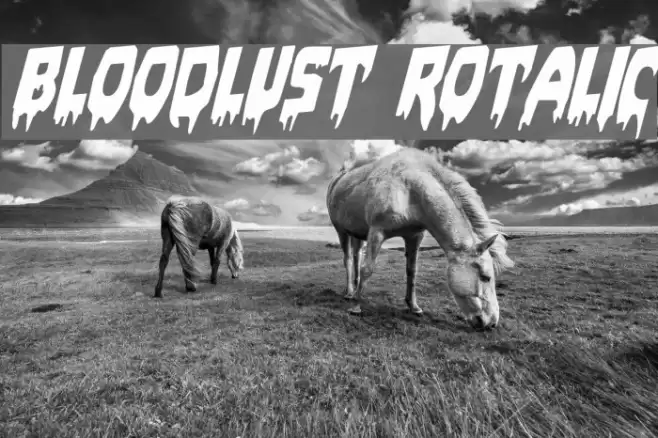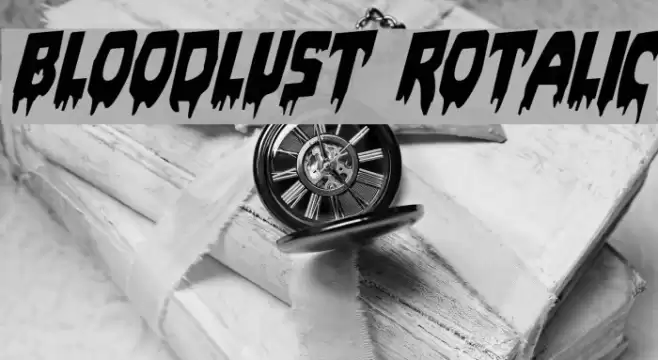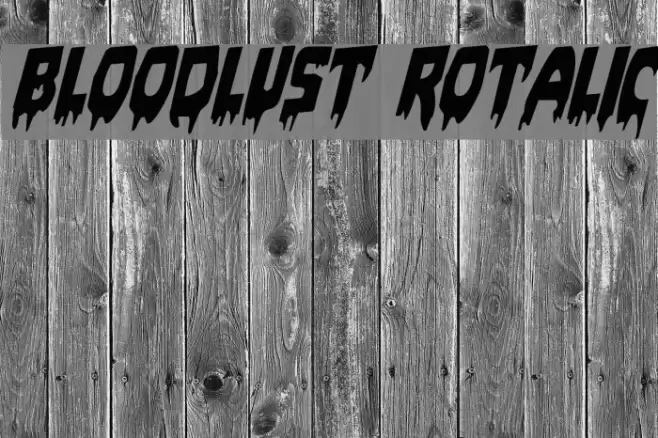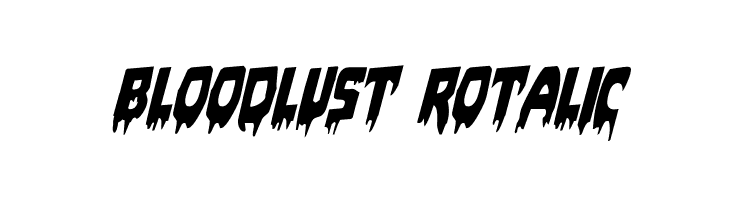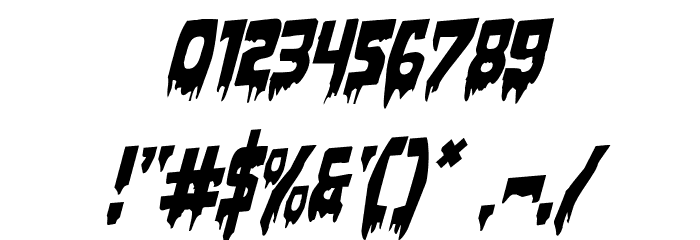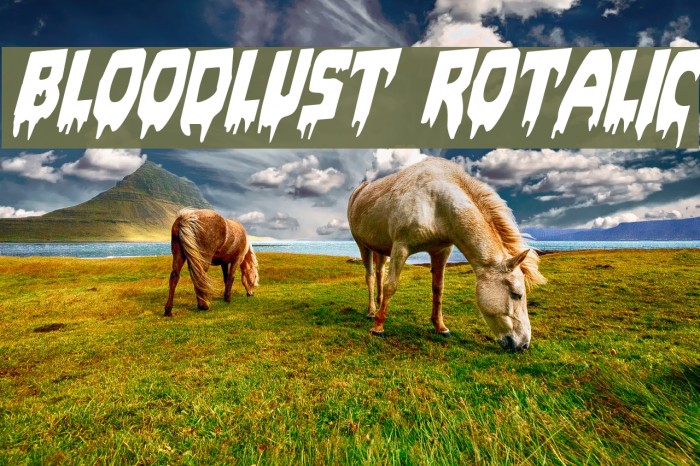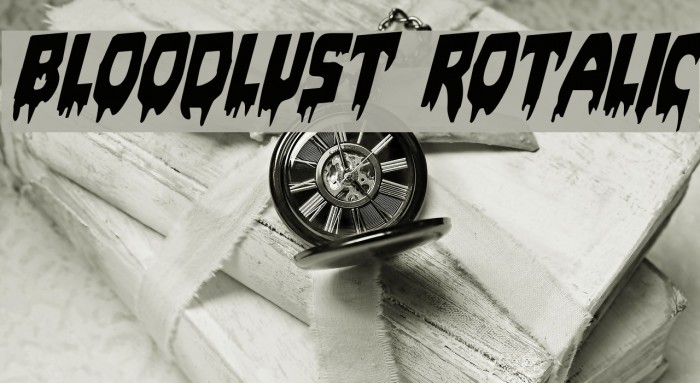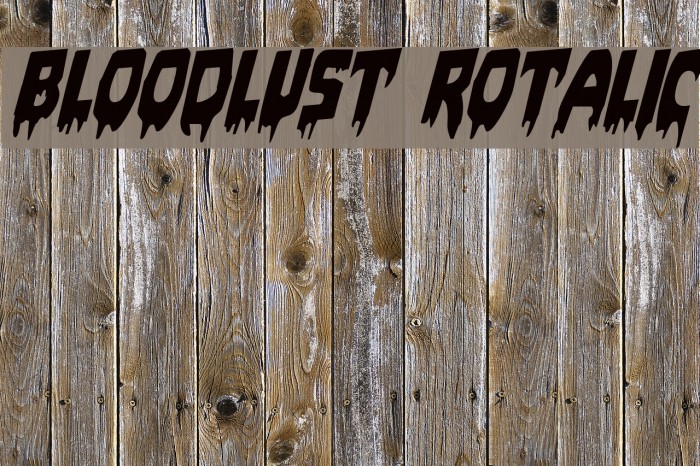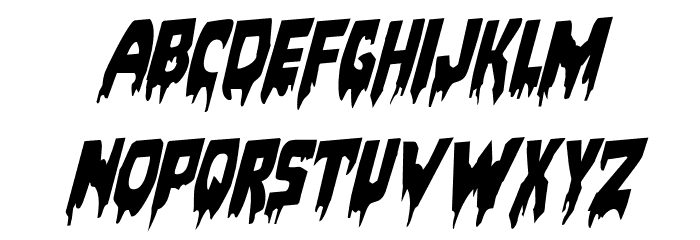
Bloodlust Rotalic Font
Bloodlust Rotalic Description
This font features a bold and dramatic style with jagged, dripping edges that evoke a sense of horror and intensity. The uppercase and lowercase letters maintain a consistent, sharp aesthetic that resembles dripping paint or blood, making it ideal for themes related to Halloween or horror genres. The numbers and special characters follow the same design, ensuring a cohesive look across all text elements. Its unique style is eye-catching and perfect for creating a chilling atmosphere.
A bold, jagged font with a horror-themed, dripping effect from Uncategorized fonts.